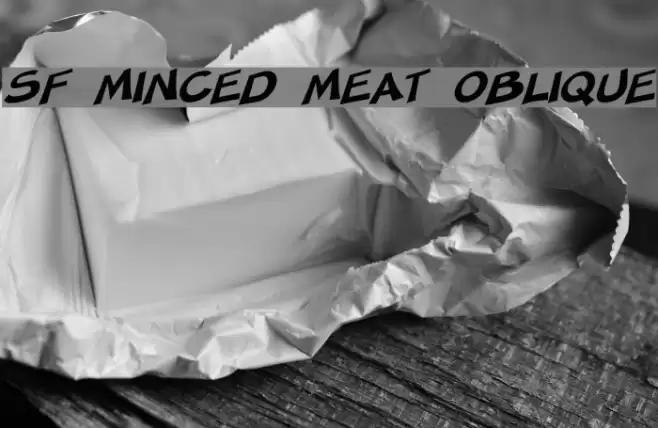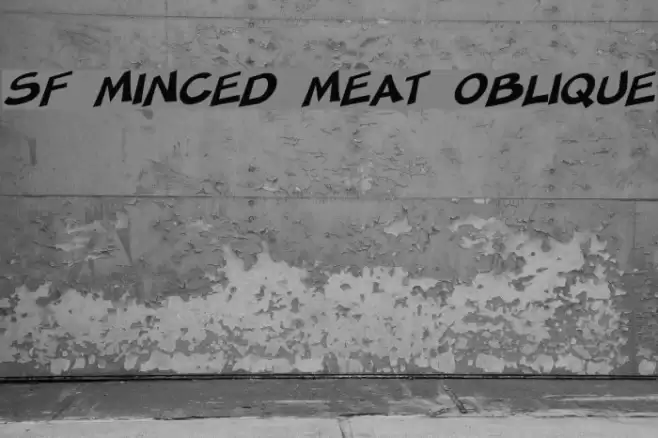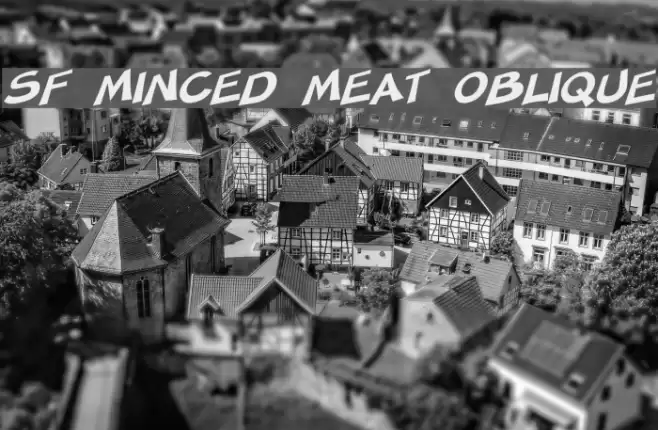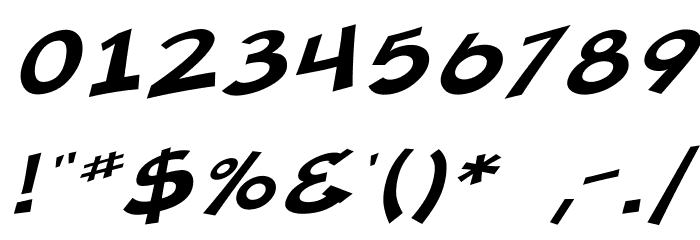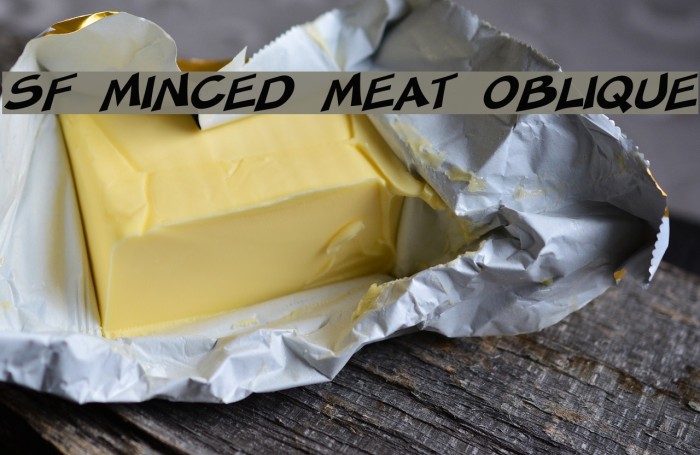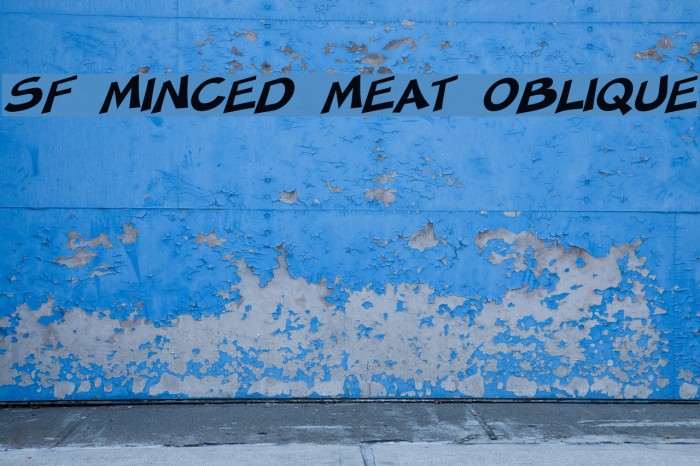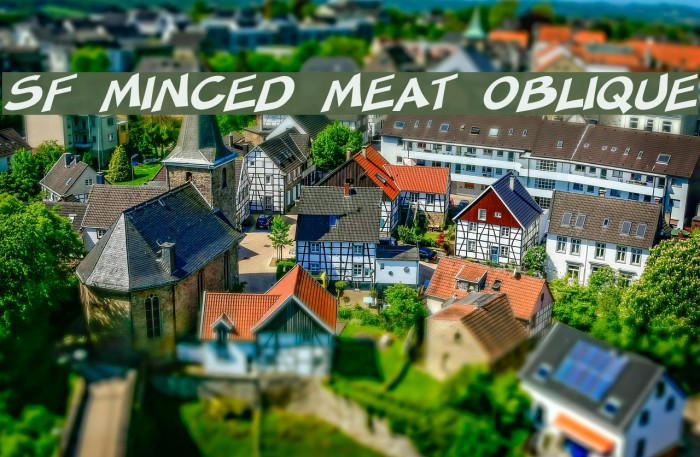
SF Minced Meat Oblique Font
SF Minced Meat Oblique Description
This font features a dynamic and energetic style with an oblique slant, giving it a sense of motion and urgency. The characters are bold and slightly condensed, with sharp angles and clean lines that create a modern and edgy appearance. The uppercase and lowercase letters maintain a consistent style, while the numerals and special characters complement the overall design. The font's boldness and slant make it particularly eye-catching, suitable for projects that require a strong visual impact.
A bold, oblique font with a modern and energetic style from Comic fonts.
- Proposed Projects: Ideal for sports branding, dynamic posters, advertising campaigns, and any project needing a bold, impactful typeface.